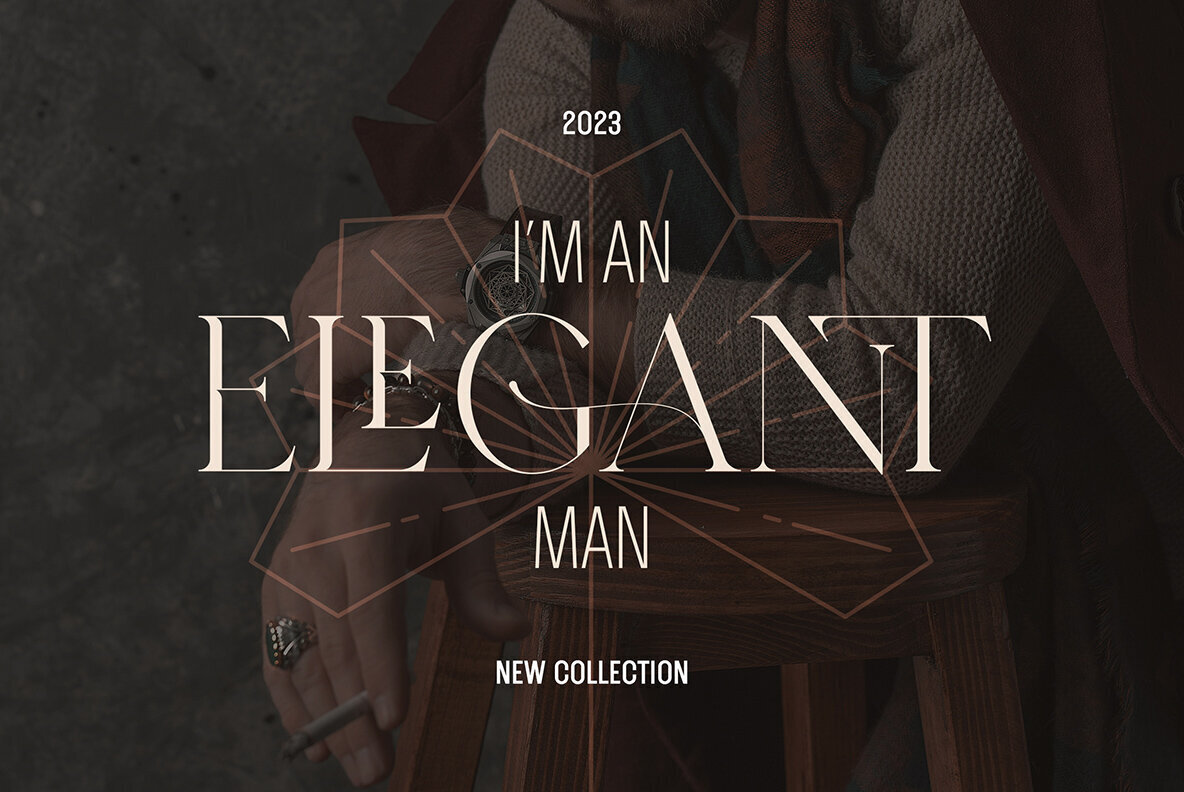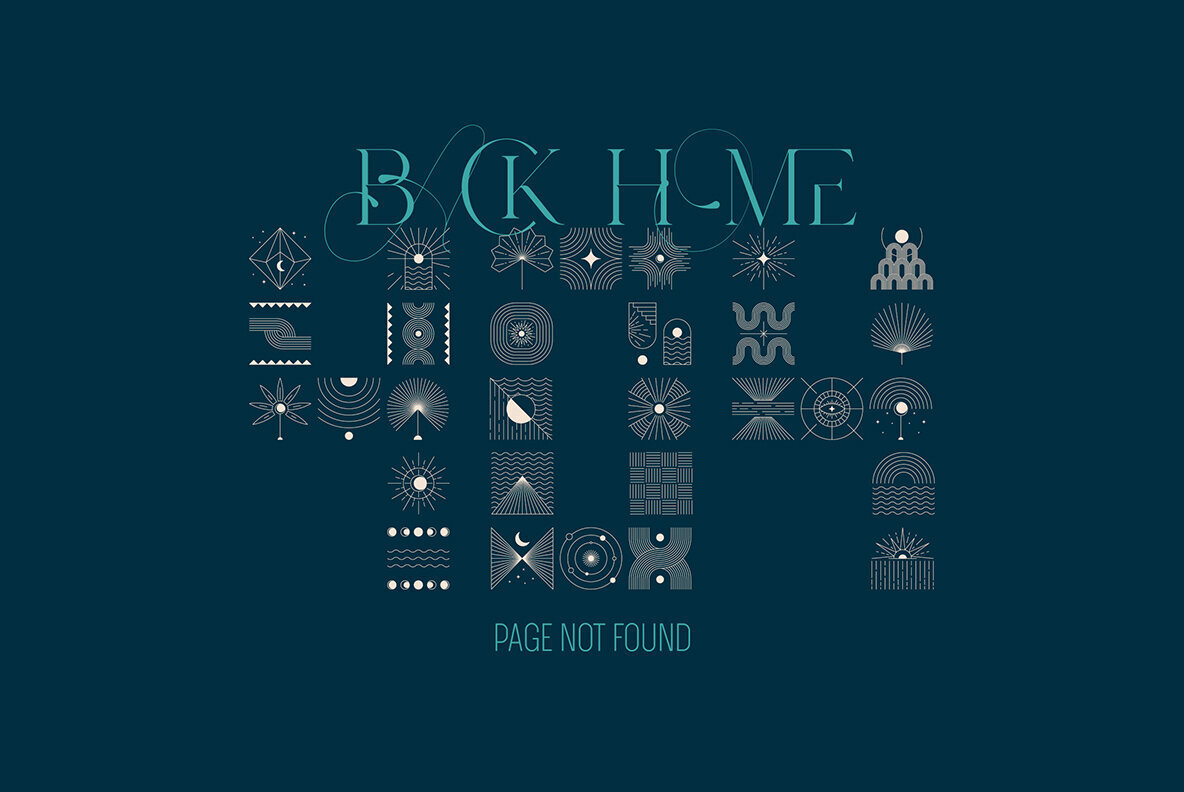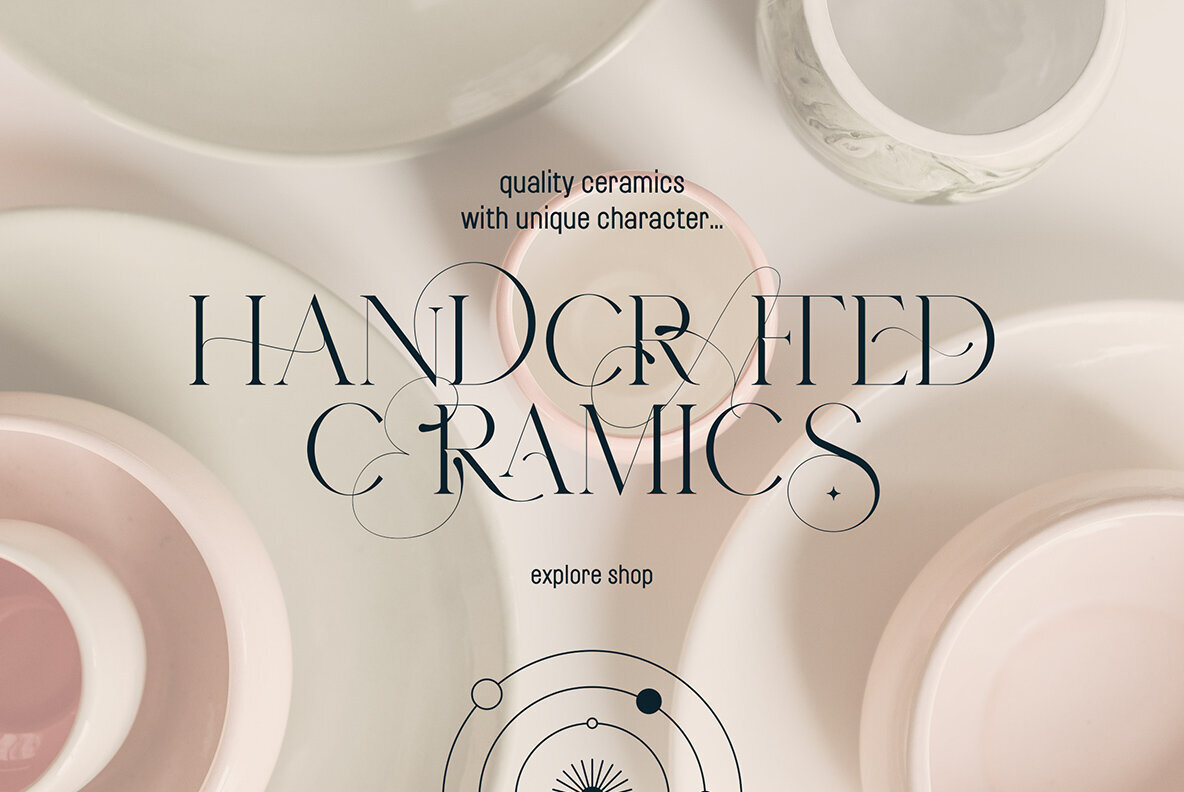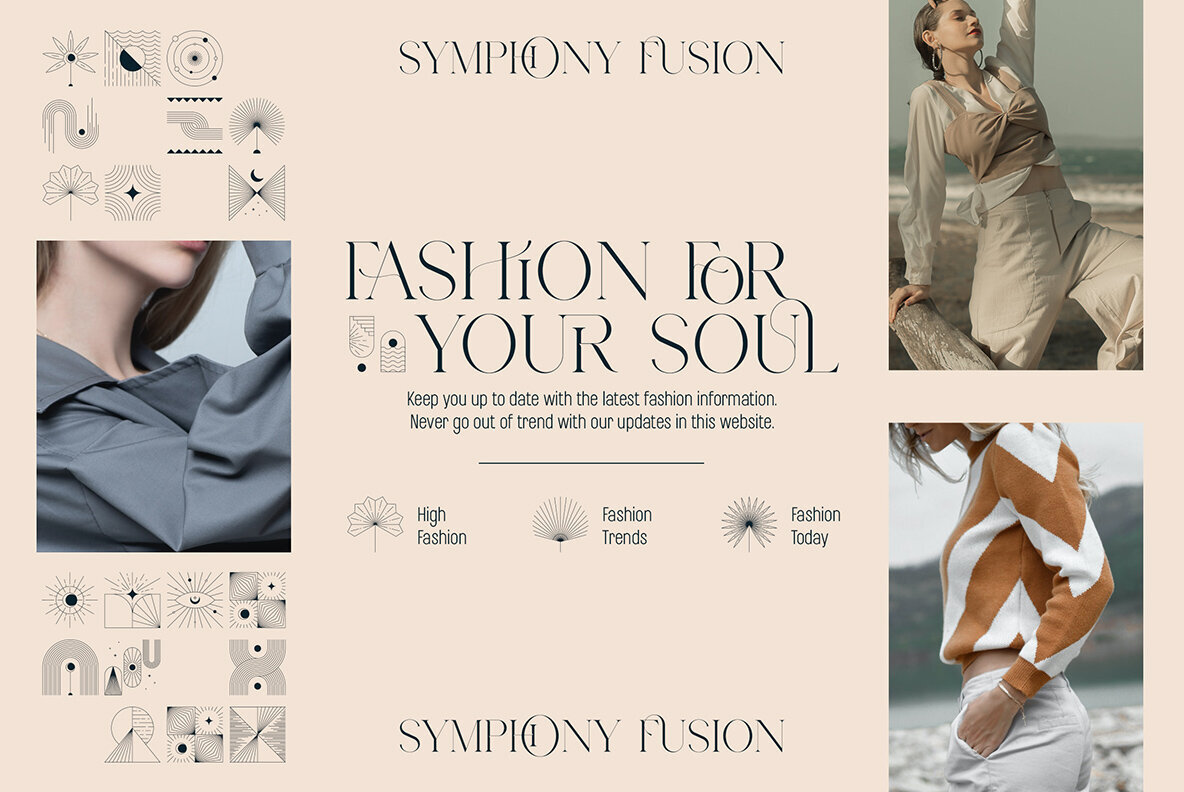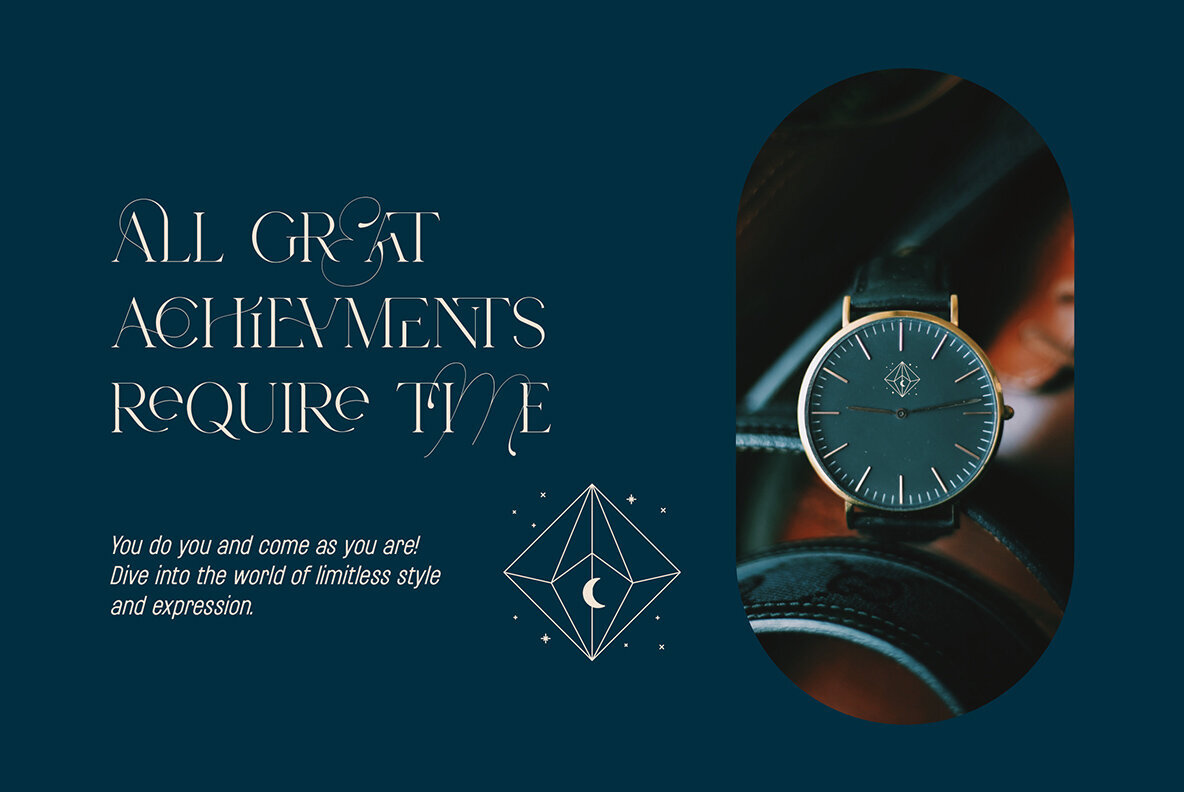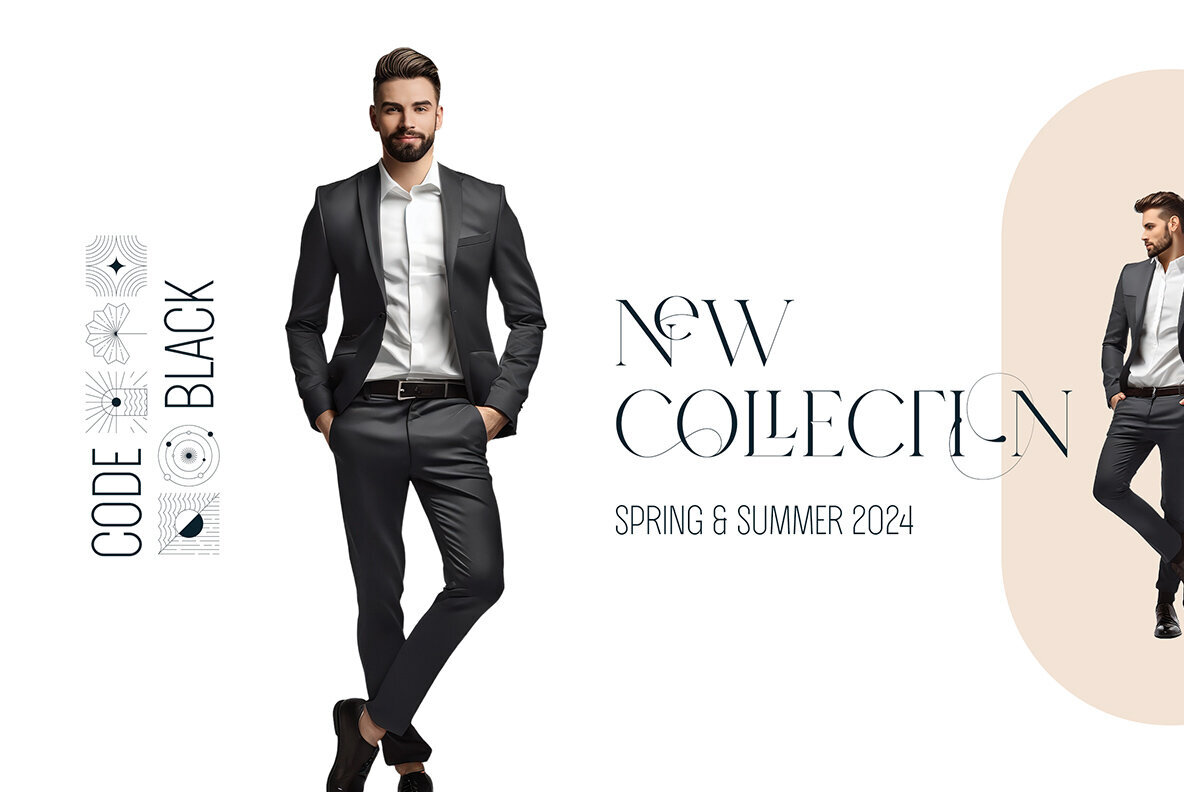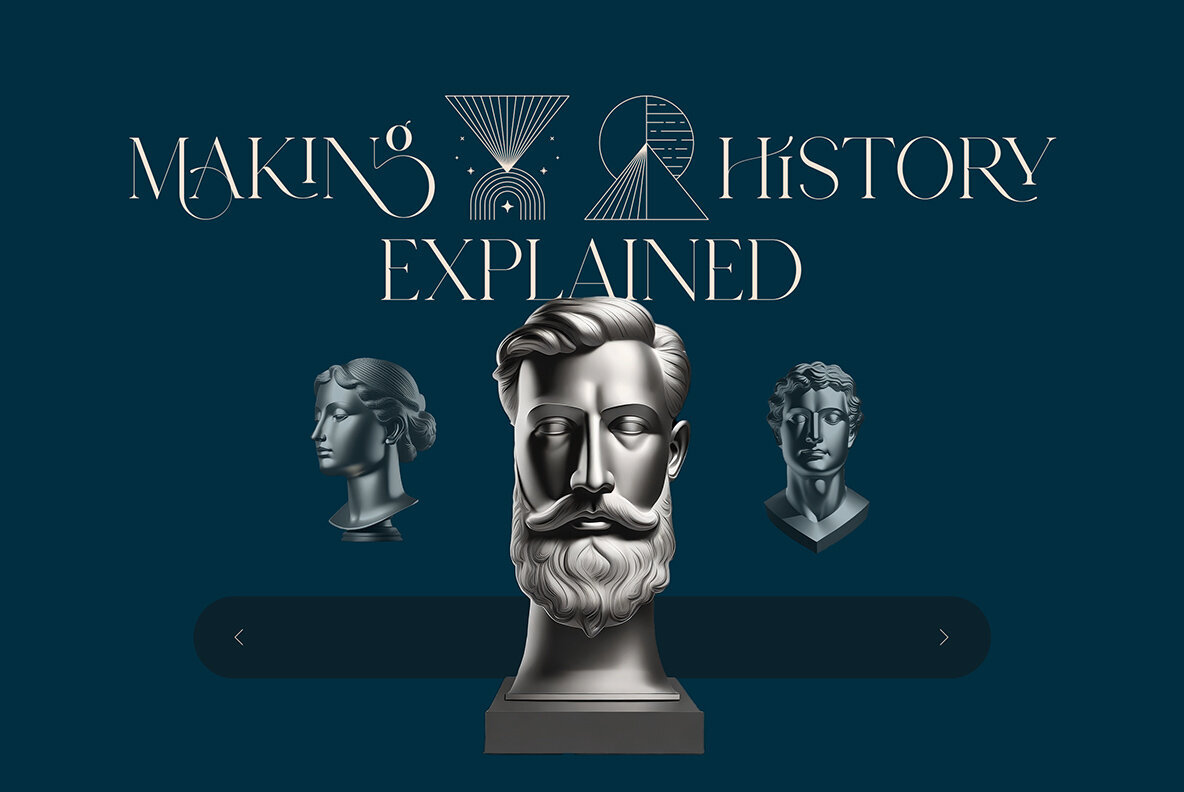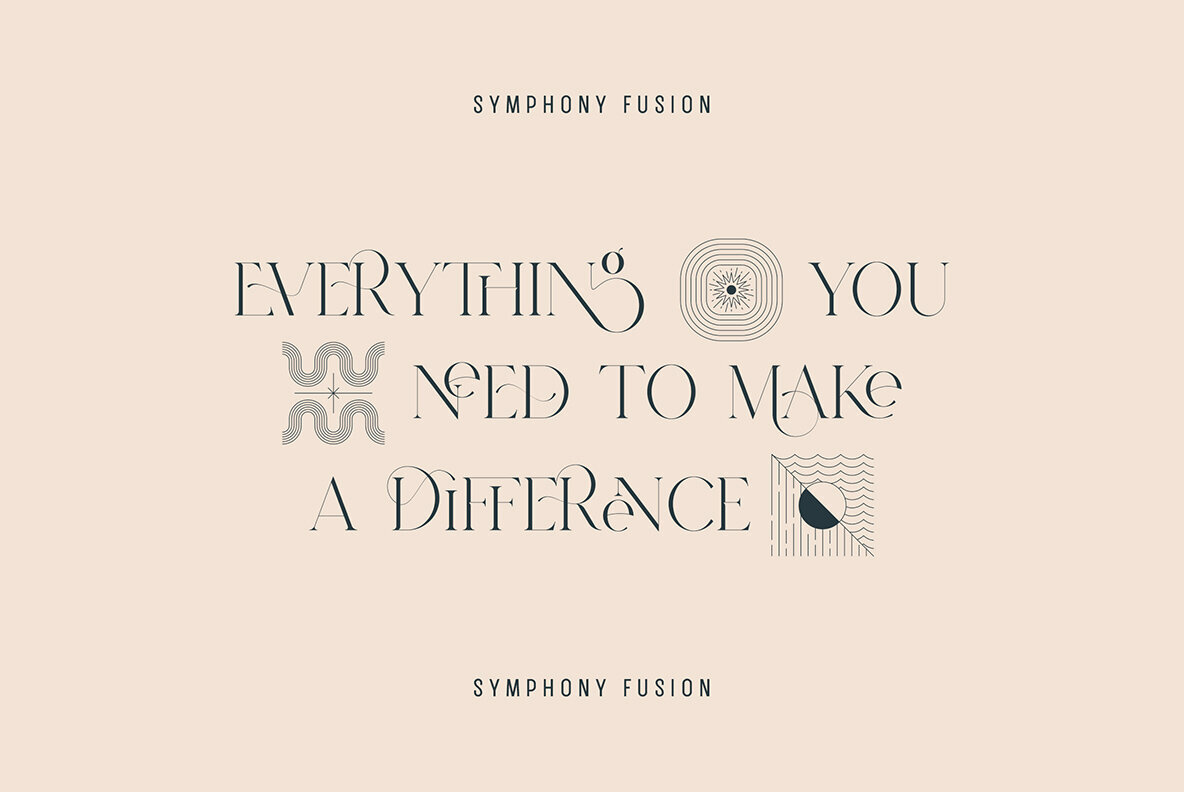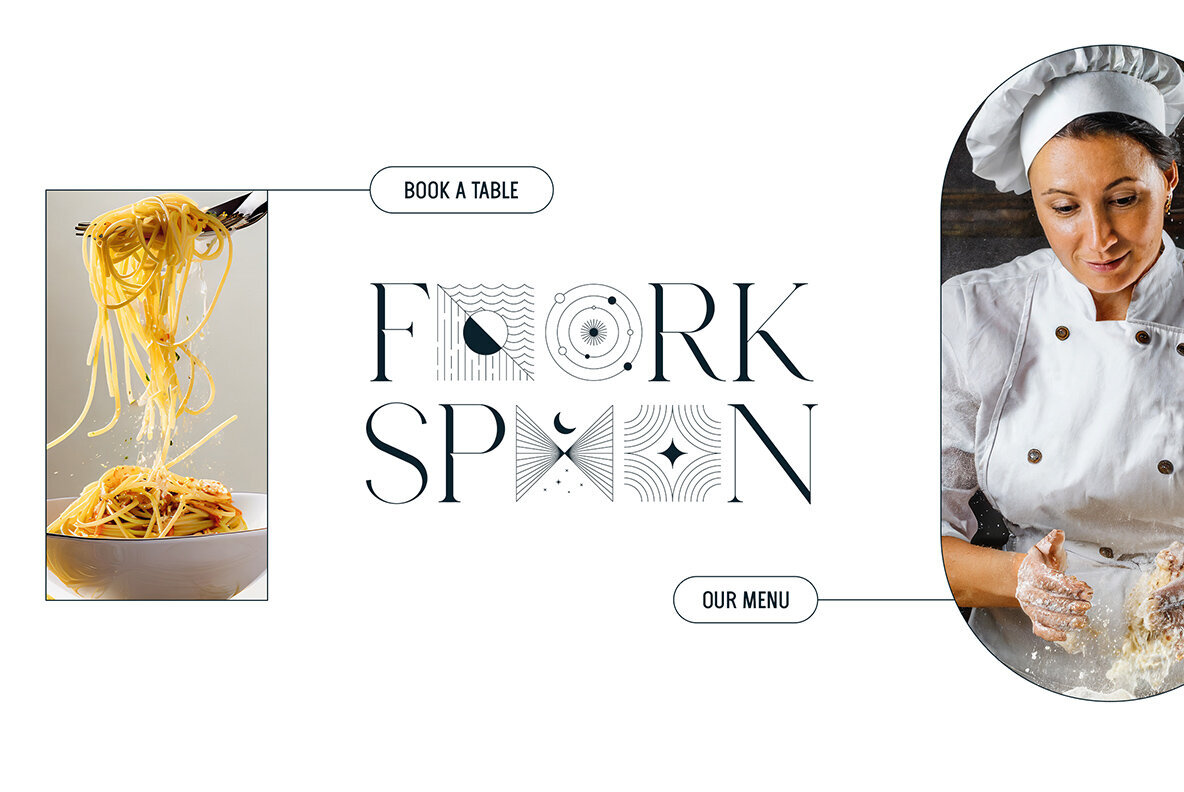
Symphony Fusion Font
Symphony Fusion is a delightful and versatile typeface that seamlessly blends classic elegance with modern flair. This serif font boasts a rich collection of ligature glyphs, adding a touch of sophistication to your text. What sets it apart is its unique approach to uppercase letters, where a graceful script design takes center stage, creating a harmonious balance between tradition and contemporary style. Adding to its versatility, Symphony Fusion doesn't stop at just serifs. It extends its range with complementary sans serif fonts, offering various weights and italic versions. This diversity allows for creative freedom, enabling you to express your message with both poise and a touch of boldness. One of Symphony Fusion's notable features is its extensive language support, accommodating a total of 87 languages. This makes it a globally inclusive choice for communication, ensuring that your words can be elegantly expressed in a multitude of linguistic contexts. To elevate your design even further, Symphony Fusion doesn't just limit itself to alphabets and characters. With 52 additional art elements, this typeface provides a treasure trove of creative possibilities. These elements can be used independently or combined in patterns, allowing you to add a unique and personalized touch to your projects. In essence, Symphony Fusion is more than just a typeface; it's a symphony of design elements that harmonize tradition and modernity, offering a friendly and versatile tool for creative expression across a diverse range of languages and visual styles.